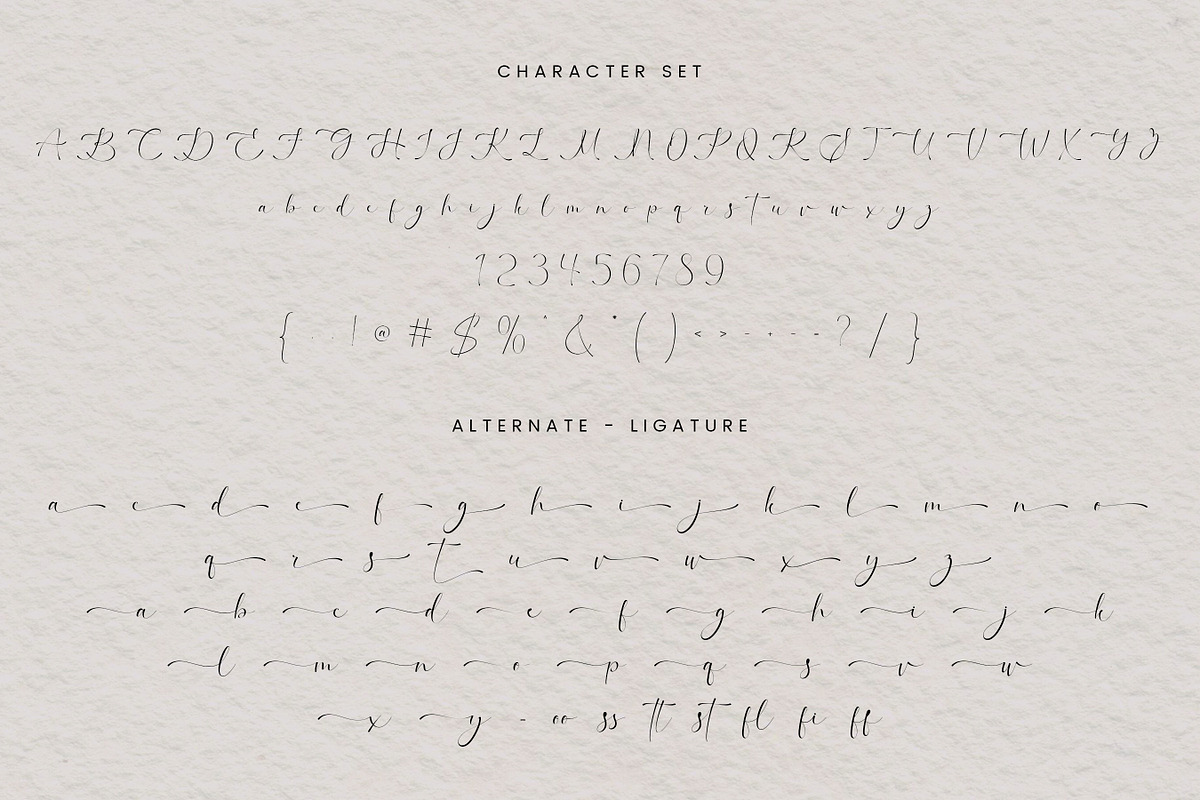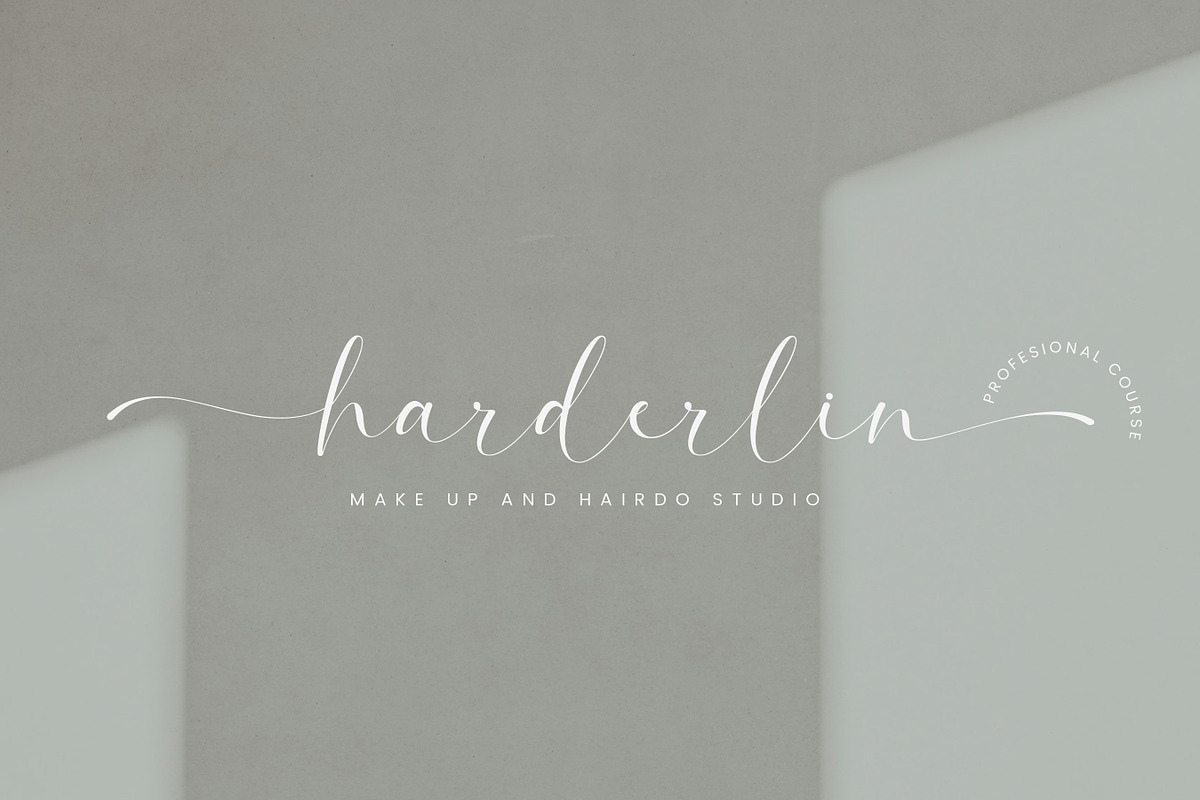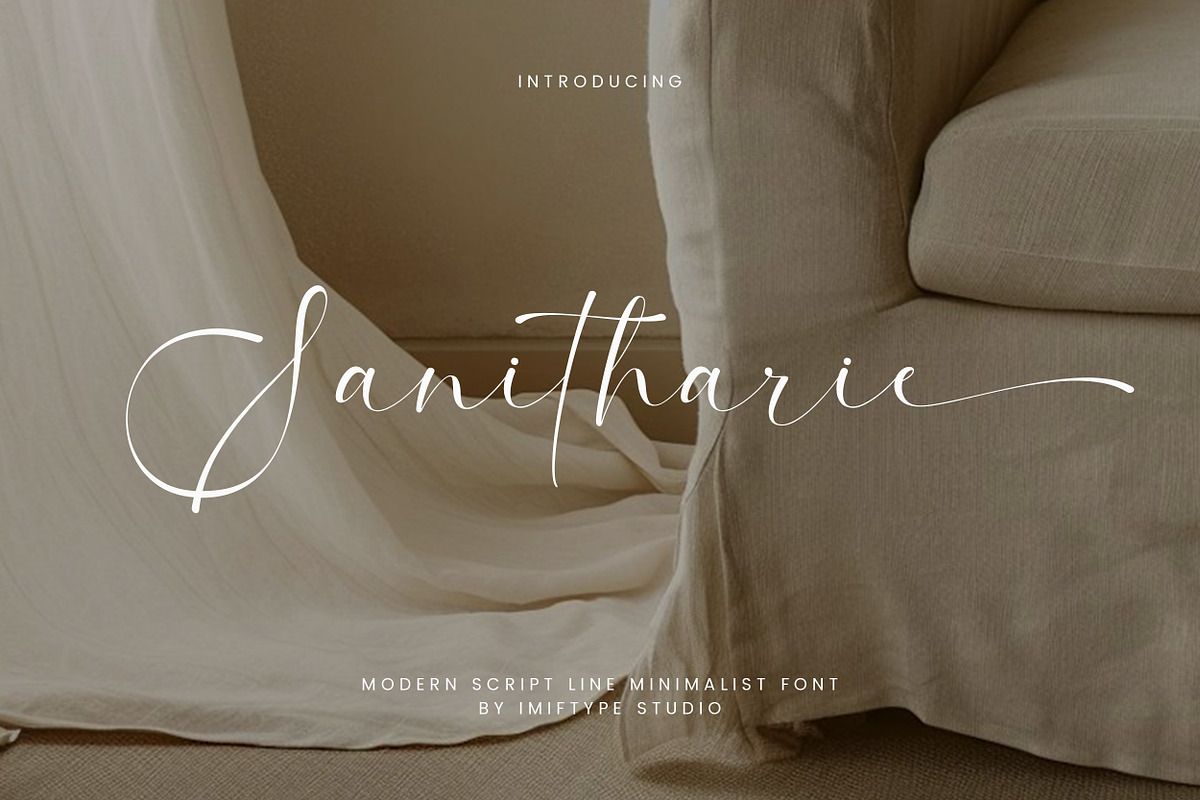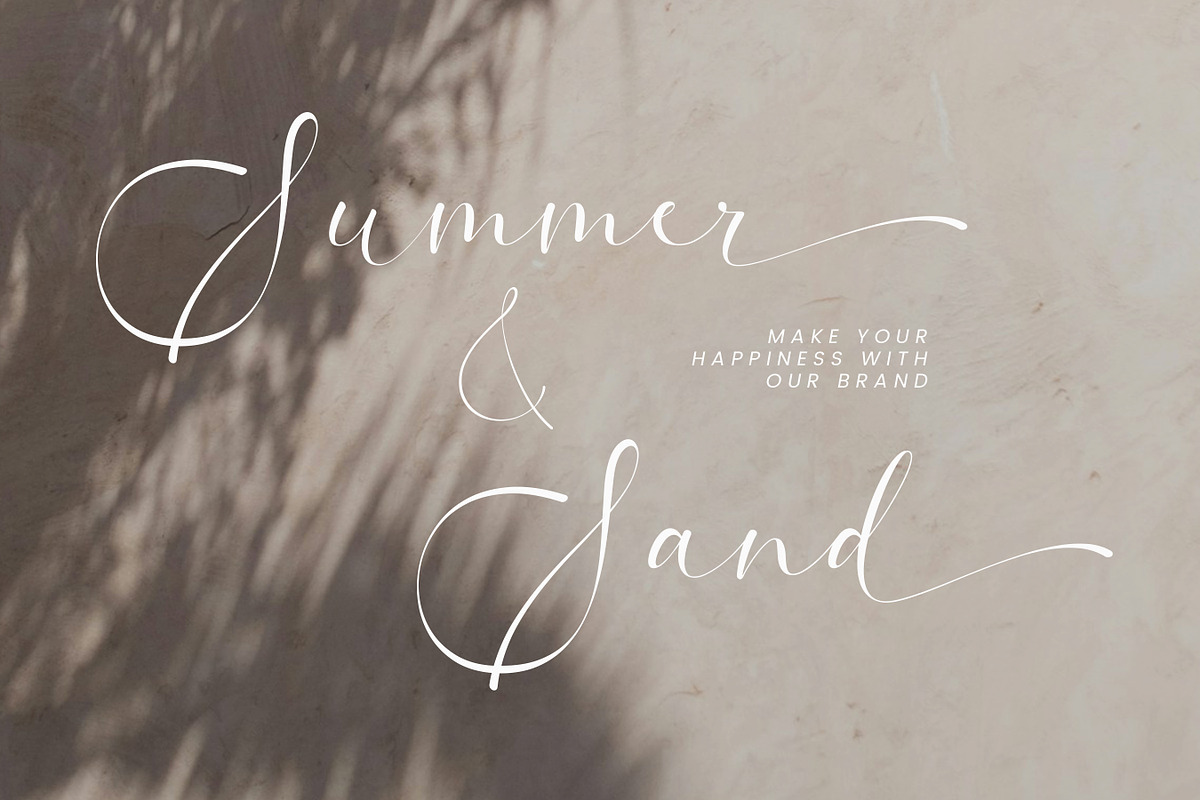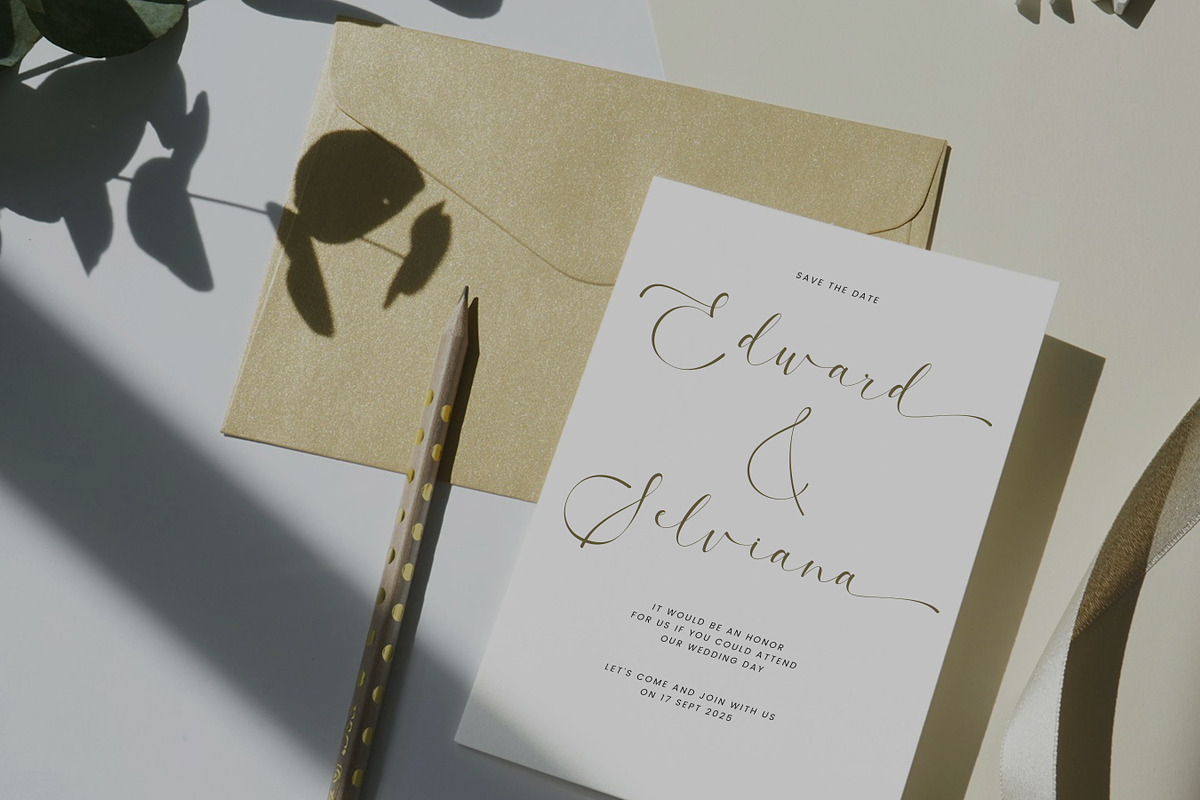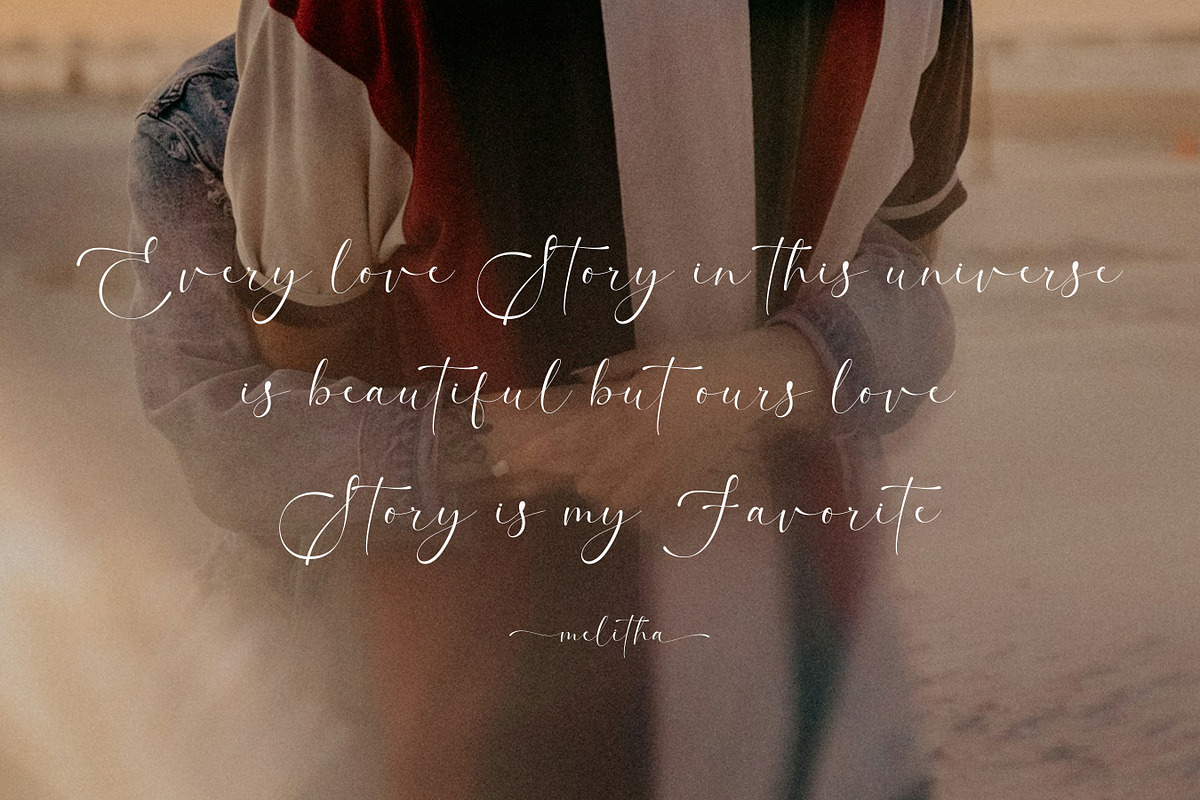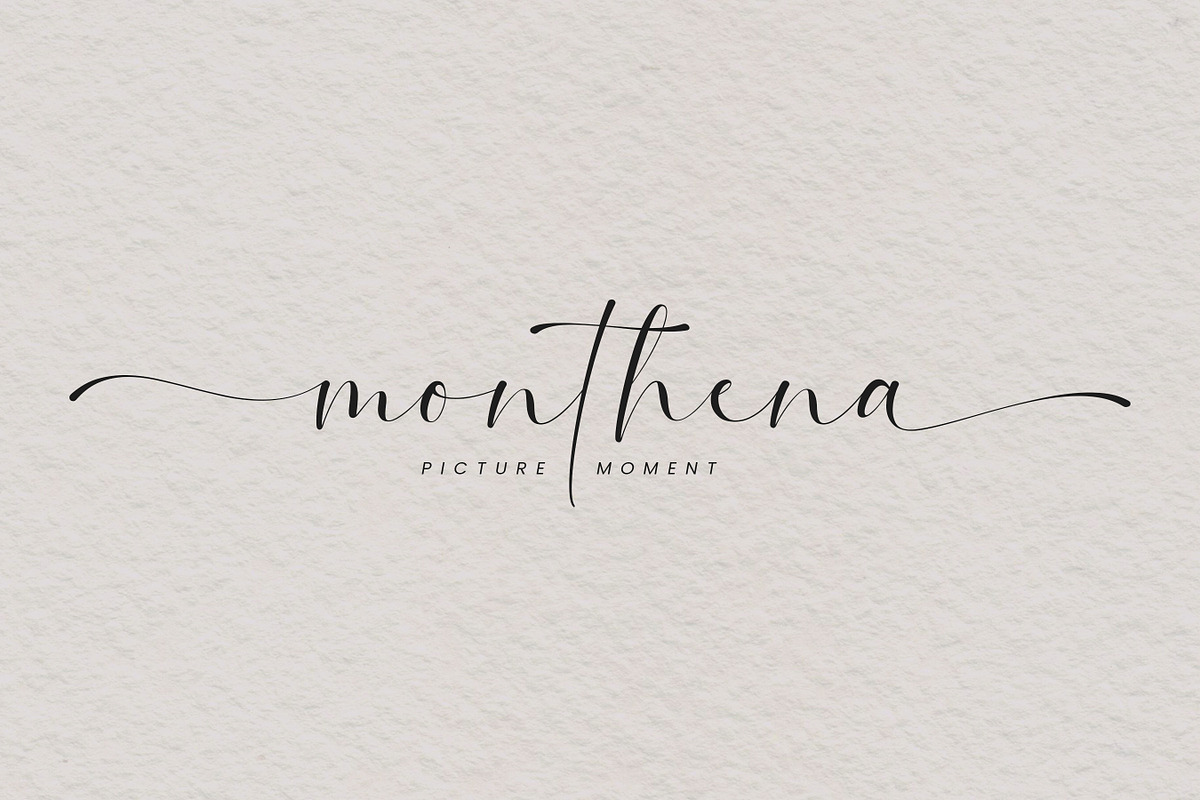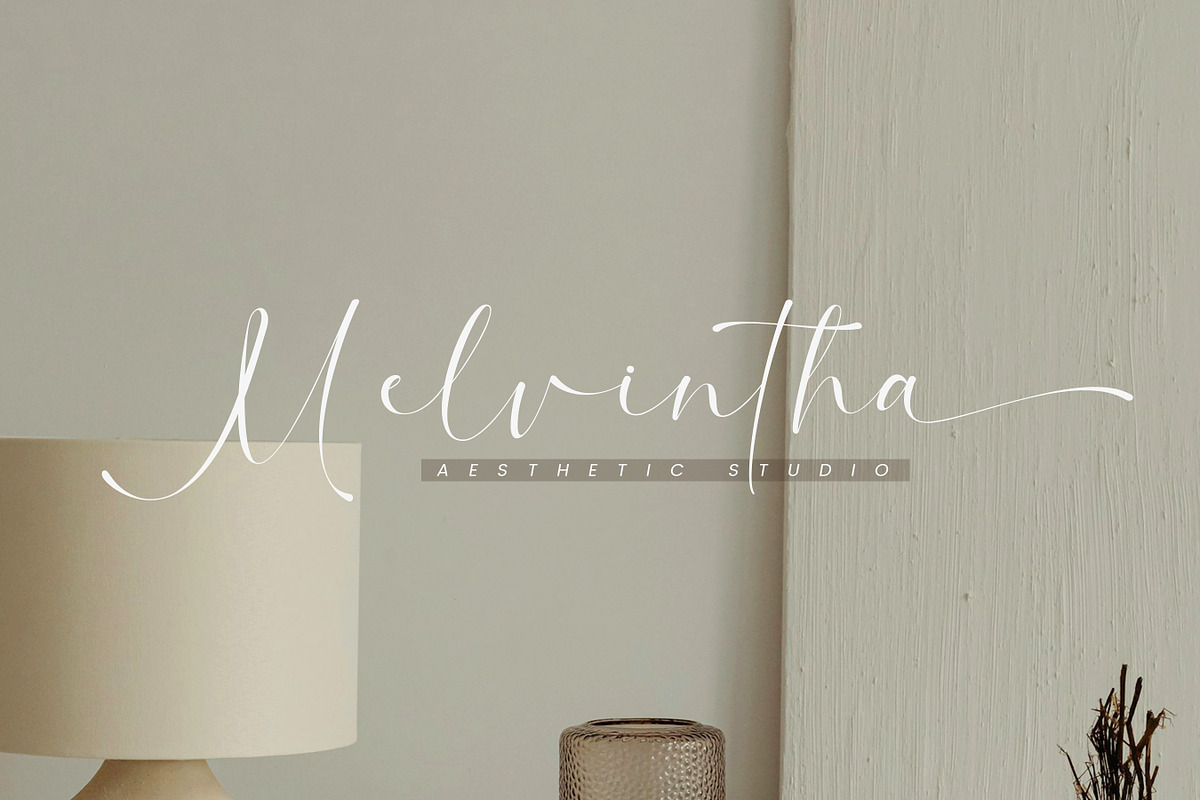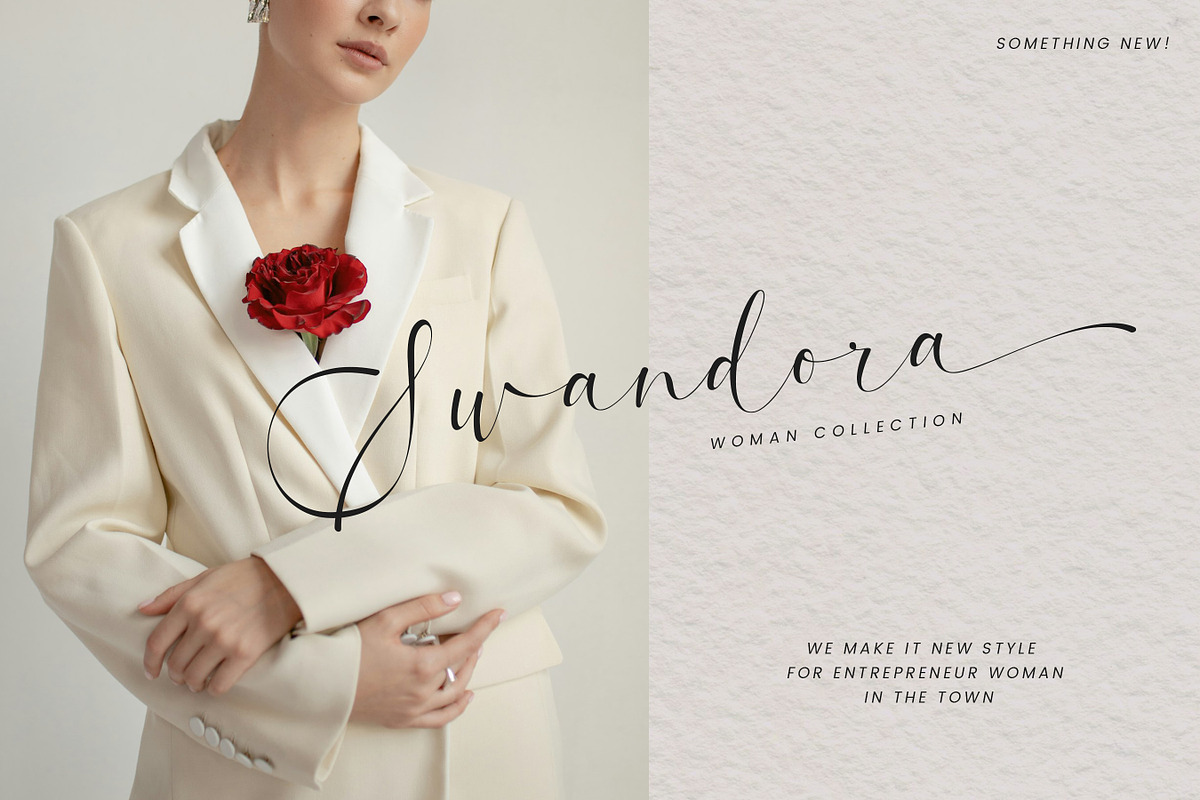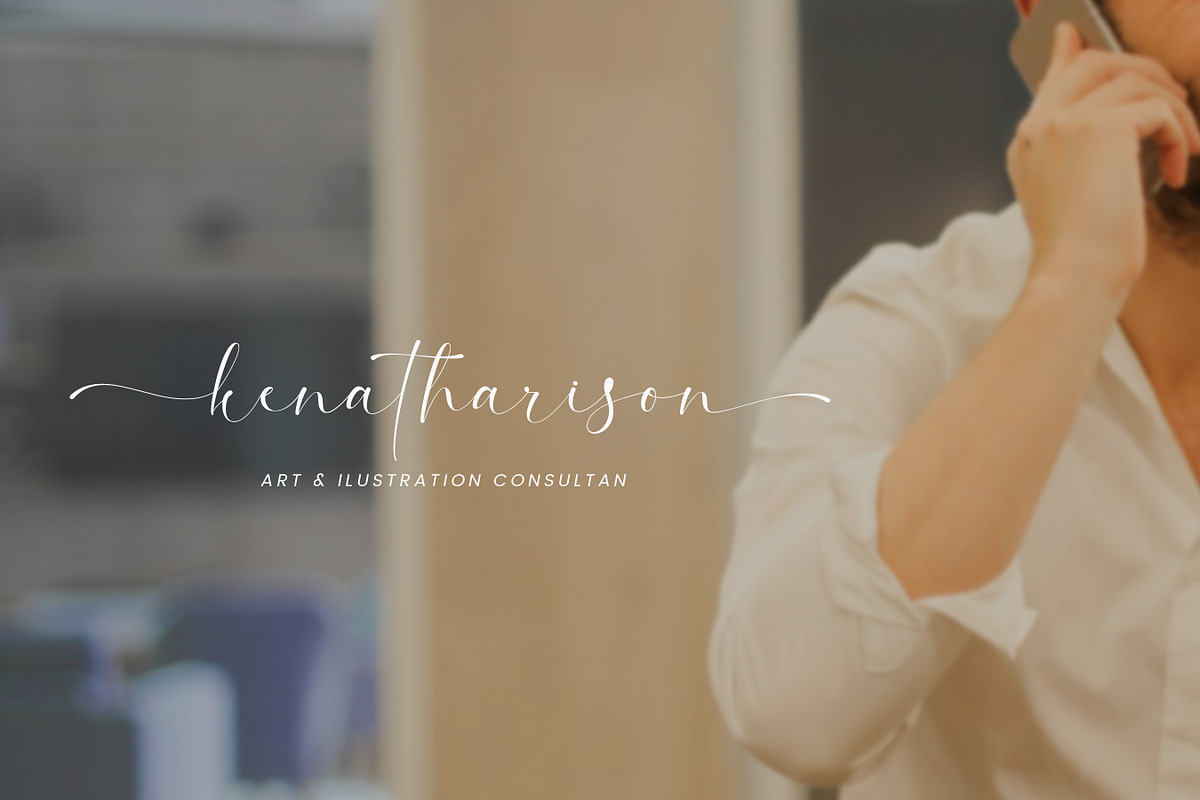
Sanitharie – Modern Script
Sanitharie is a modern script line minimalist font designed to express elegance through simplicity. Featuring thin strokes, smooth curves, and graceful flow, this font delivers a clean handwritten feel that looks light, airy, and refined.
Sanitharie is perfect for modern branding, logos, wedding invitations, editorial designs, fashion projects, social media graphics, quotes, packaging, and minimalist layouts. Its delicate line style creates a soft and sophisticated mood while maintaining excellent readability.
Designed with a contemporary aesthetic, Sanitharie works beautifully for both digital and print use. Whether you are creating luxury branding, romantic visuals, or clean modern typography, this font adds a calm, timeless, and elegant character to your design.
Sanitharie is an ideal choice for designers who love minimalist handwriting styles with a modern and premium touch.